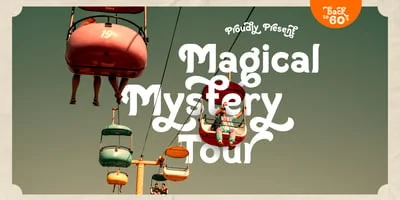
Beach Sound Font
Beach Sound Font is perfect for tropical resort branding, beach music festival posters, coastal restaurant signage, surf shop logos, ocean-themed event promotions, seaside vacation marketing, beach club identities, and summer lifestyle campaigns.
Beach Sound Font is exciting because it captures the rhythmic harmony and relaxing melody of ocean waves through its flowing character design that embodies the soothing sounds of coastal life and the peaceful tranquility of beach environments. Its oceanic styling and coastal appeal make it the perfect choice for brands that want to communicate relaxation, freedom, and the transformative power of seaside experiences.
Beach Sound Font family includes multiple coastal variations: Beach Sound Light, Beach Sound Regular, Beach Sound Bold, Beach Sound Wave, Beach Sound Tide, and Beach Sound Shore, along with oceanic decorative elements and beach symbols, providing designers with comprehensive tools for creating authentic coastal and beach-themed brand experiences.
When exploring coastal typography solutions, Beach Sound Font stands out as the ultimate choice for designers working on beach and ocean-themed projects that require genuine coastal sophistication and relaxing appeal. This harmonious typeface embodies the essence of seaside tranquility while offering the versatility needed for modern beach hospitality and coastal tourism marketing. The font's oceanic character and coastal resonance create immediate connections with audiences who appreciate beach lifestyle and ocean experiences.
Coastal professionals consistently turn to Beach Sound Font for projects requiring authentic beach authenticity and powerful oceanic appeal. Its carefully crafted letterforms feature wave-inspired influences that work exceptionally well in both large-scale beachfront signage and intimate seaside venue materials. The font's ability to convey relaxation and coastal charm while maintaining strong brand recognition makes it invaluable for comprehensive identity systems in the beach hospitality, coastal tourism, and ocean lifestyle sectors.
Whether you're developing beach resort identities, creating coastal event marketing materials, or designing seaside vacation promotions, Beach Sound Font delivers the authentic coastal character and oceanic appeal that resonates with audiences who cherish beach experiences and coastal living. Its maritime significance and relaxing design ensure your projects capture the peaceful harmony of ocean life while maintaining contemporary professional standards that attract modern beach enthusiasts and coastal lifestyle seekers.